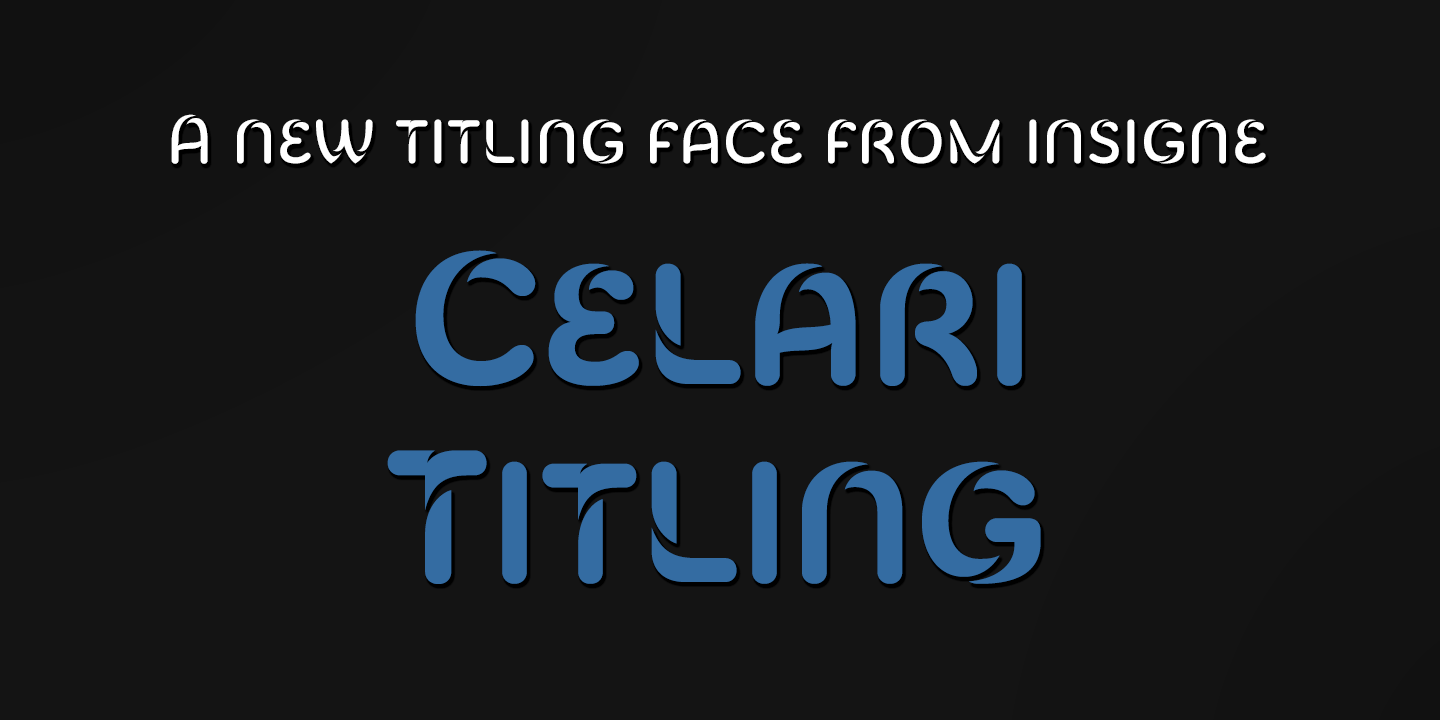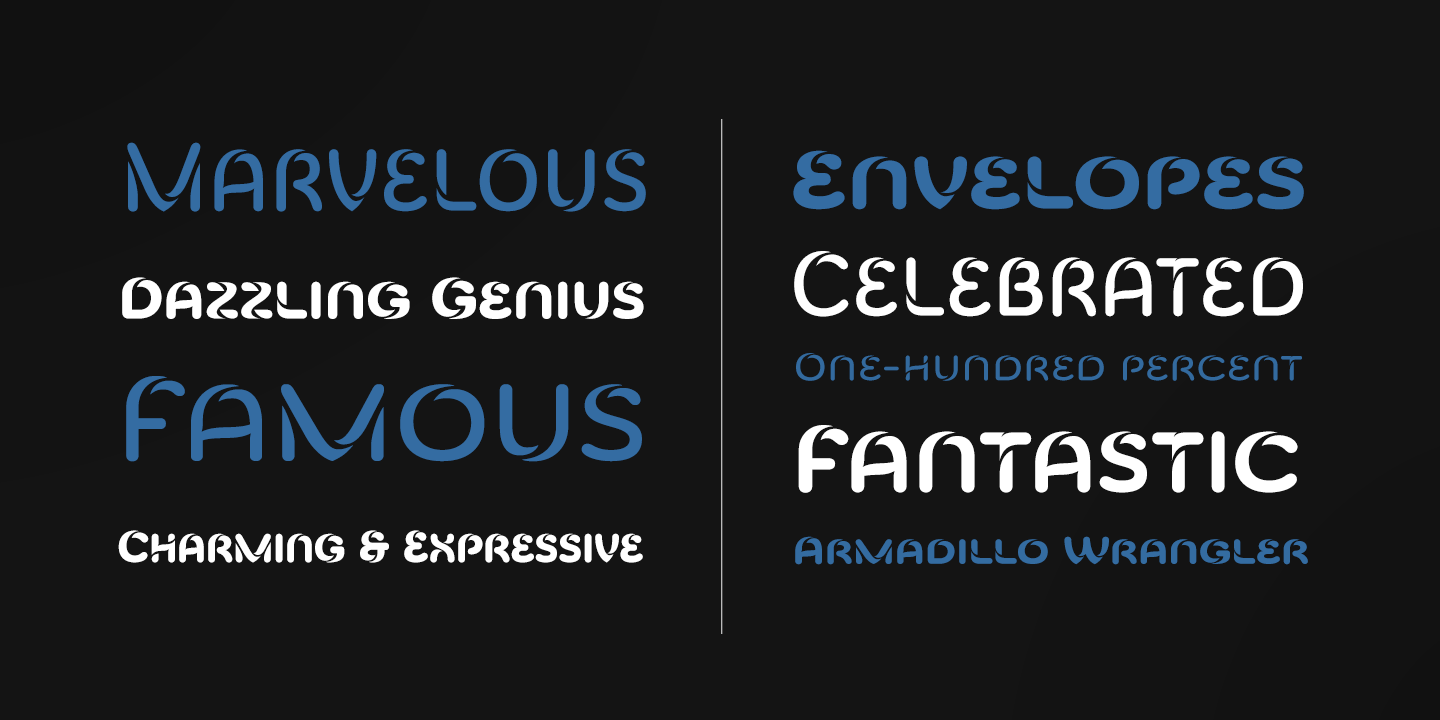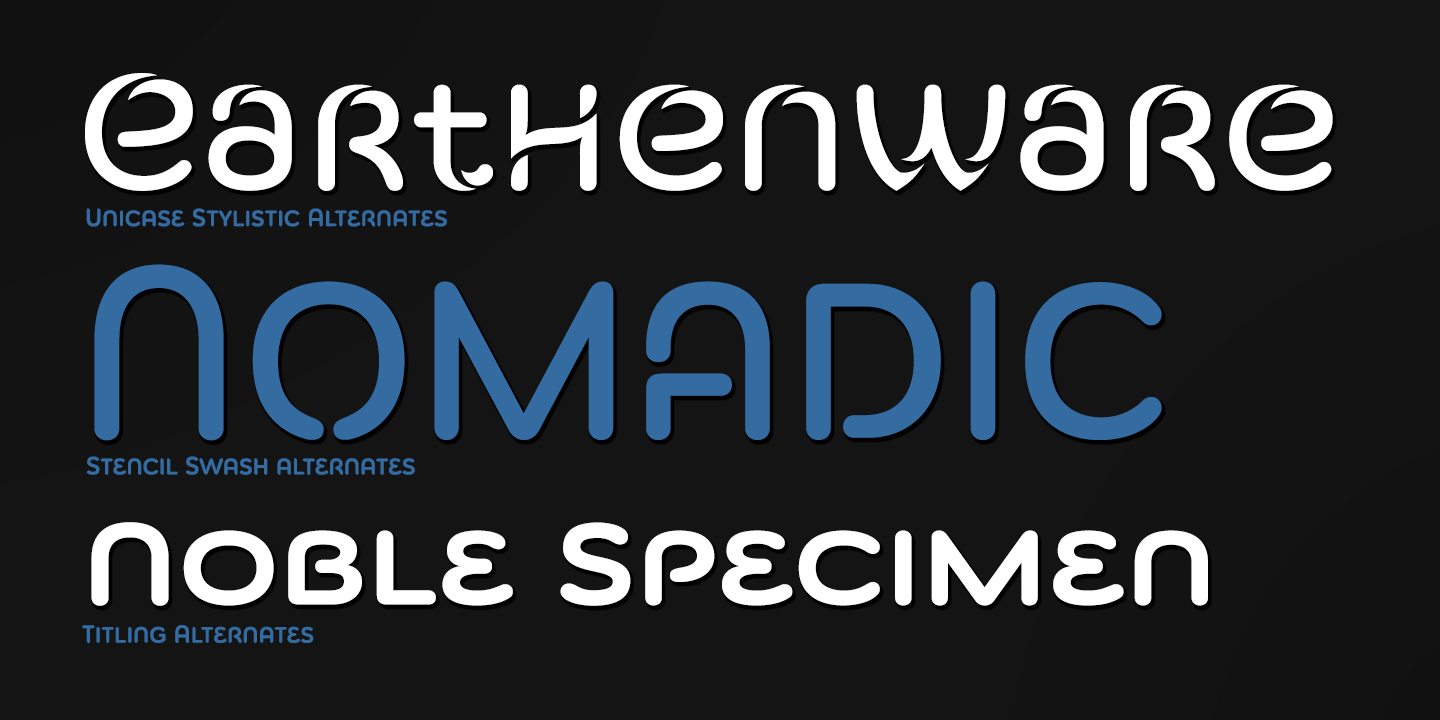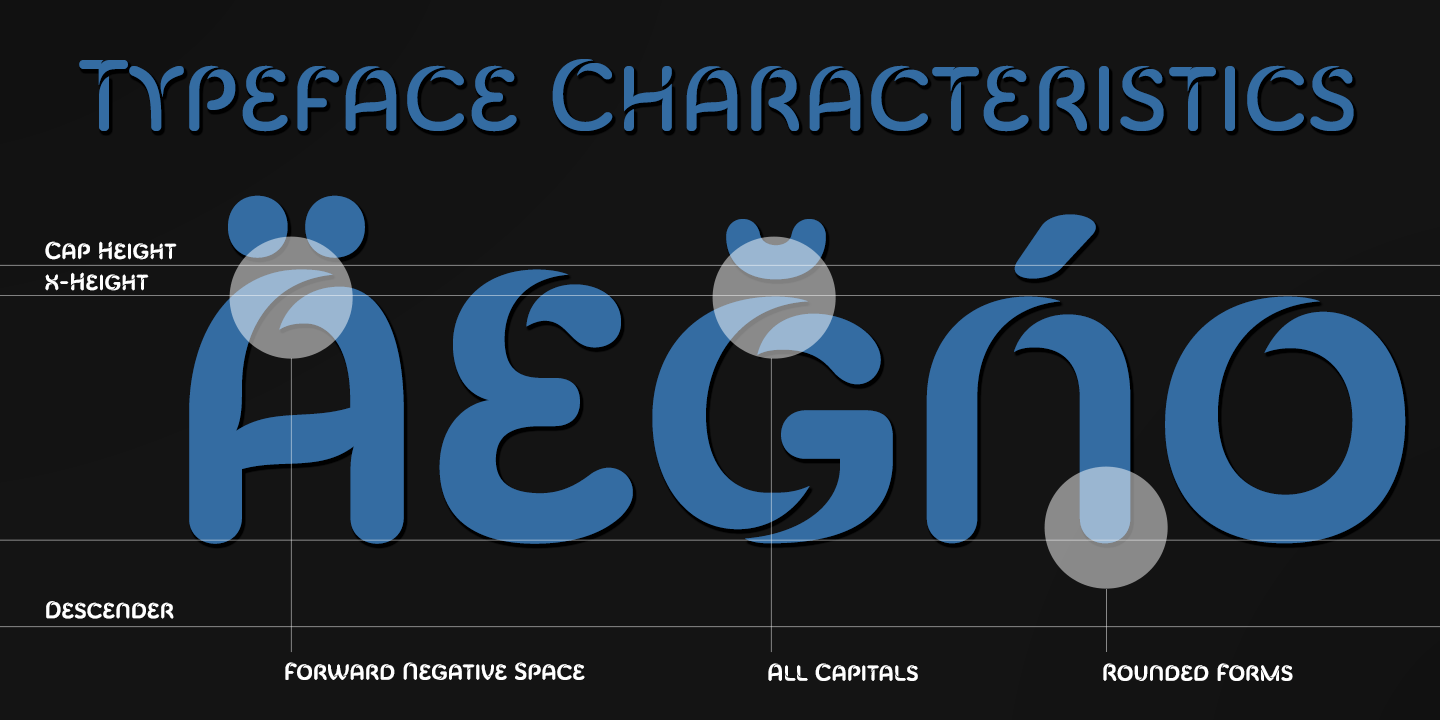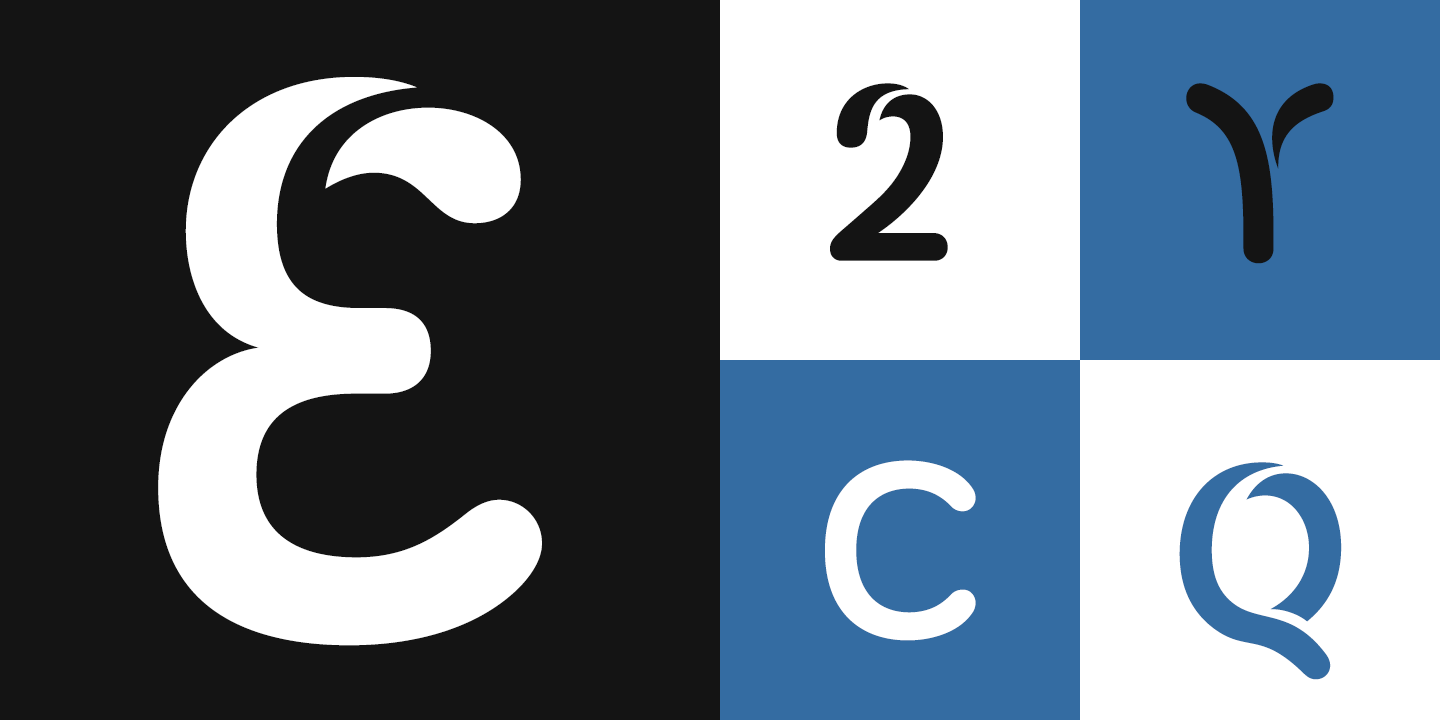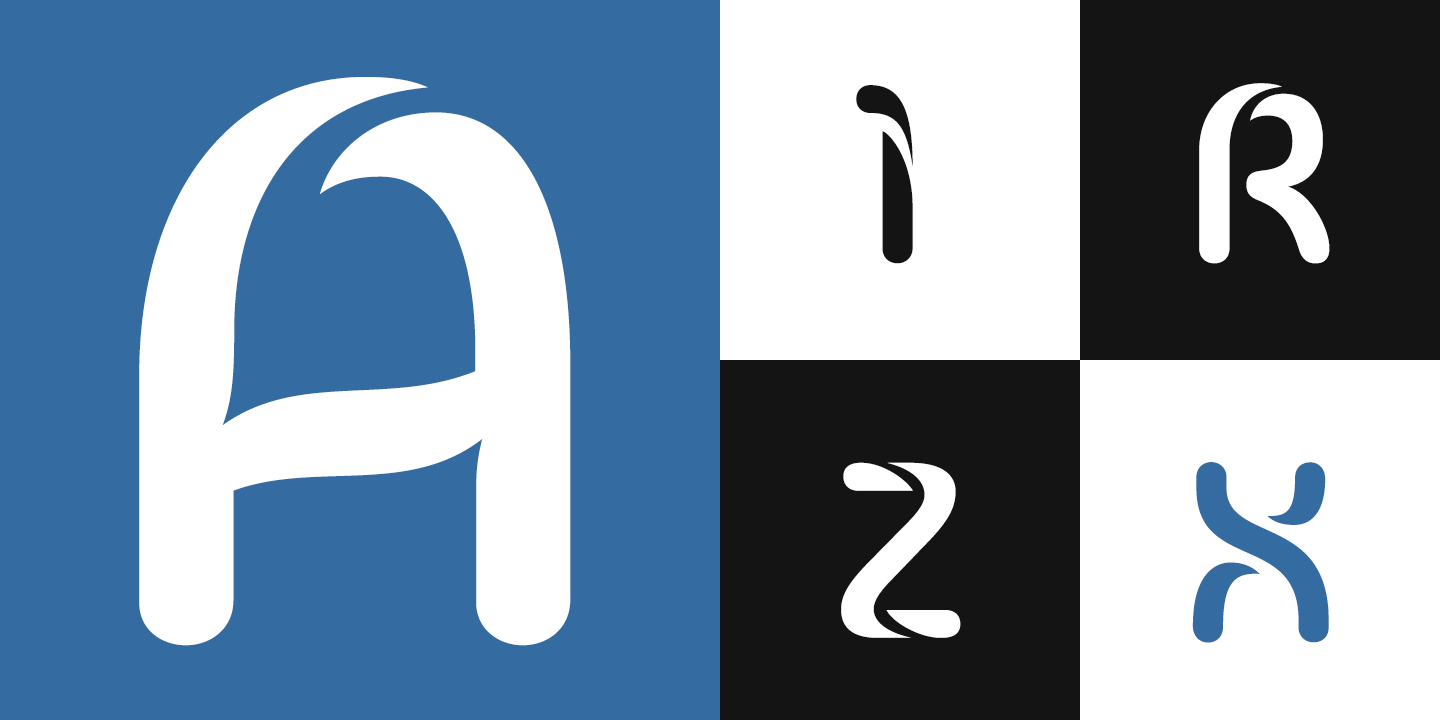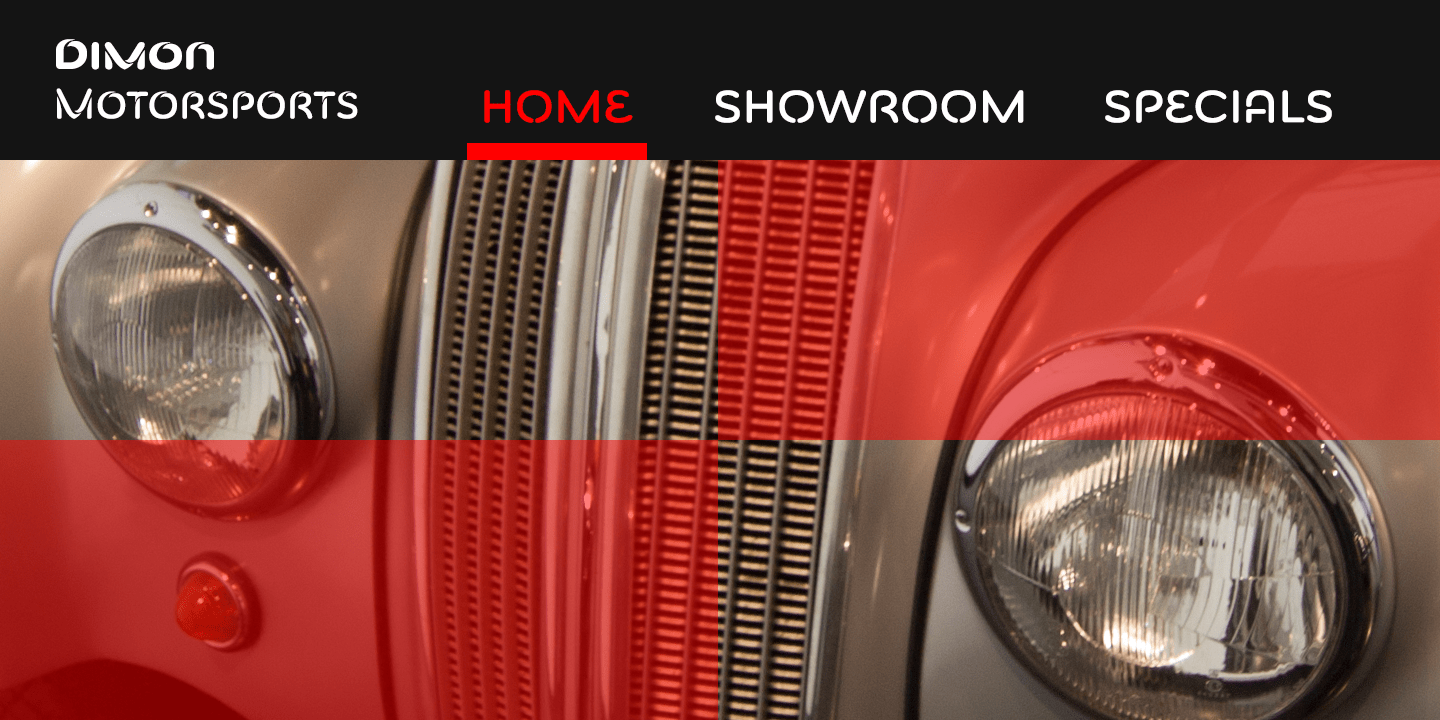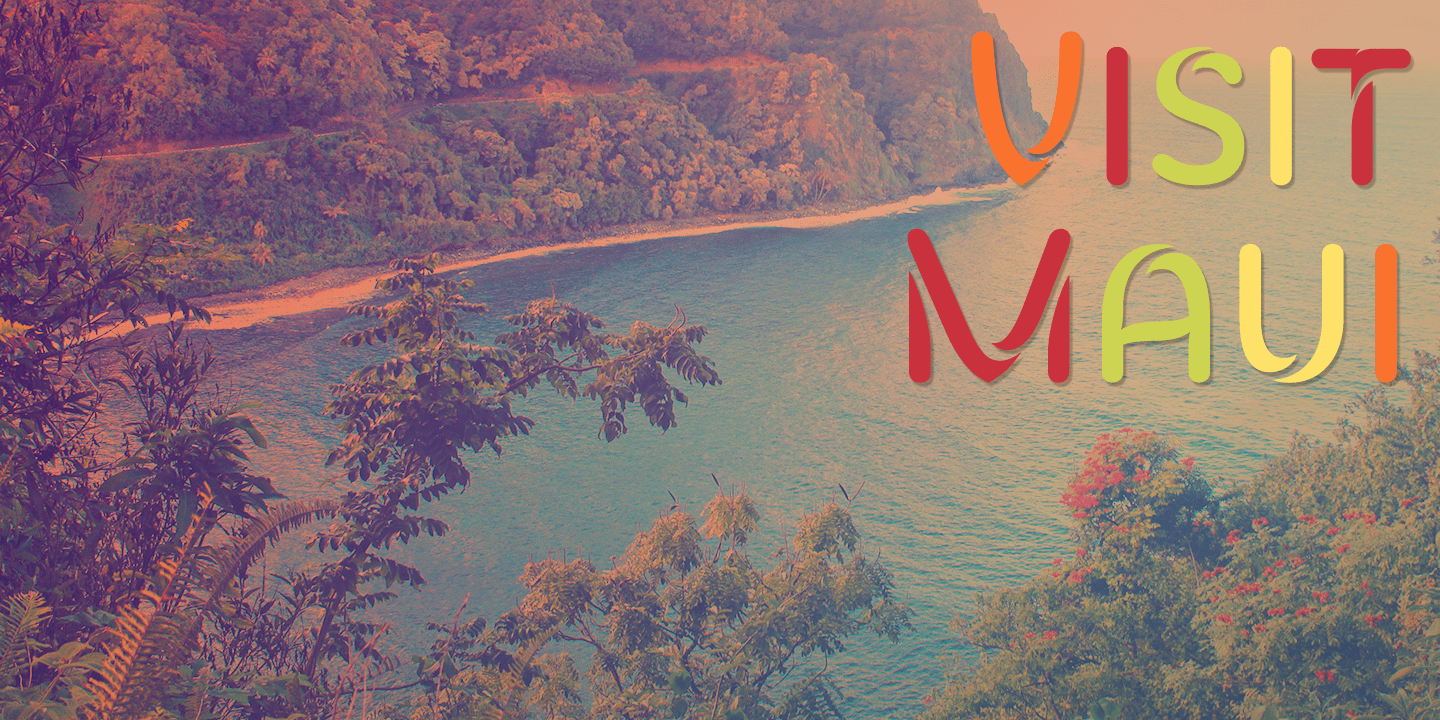
Celari Titling
Need for speed? Satisfy it with insigne's Celari. Take it for a drive and watch how its simple curves, easy lines, and sturdy shapes handle the edges and corners of your projects with smooth and rapid execution. The negative space cuts through the rounded sans serif letterforms of Celari, giving this all-caps typeface a strong impression of dimension and speed. Celari's organic stroke direction allows you to ease through its gentle turns, too, causing the font to hum around the lines of your project like a V8 engine on an open Nevada highway. The speed and agility of Celari is built for nothing less than a headline. Use the larger-than-life power of this face for any number of oversized applications--mastheads, posters, web headlines, flyers. It provides excellent performance for service-oriented ads where efficiency and quick buyer service are priorities.
Customize your ride, too. The OpenType version of Celari includes some serious add-ons to make it your design. The font incorporates discretionary ligatures for some funky combinations and adds in stylistic and contextual alternates for virtually endless possibilities with the characters, ligatures, and composites. Make sure your setup allows for OpenType fonts (Adobe CS suite or Quark) before unleashing the fun of Celari, though.
Be confident with your design. Be quick with your message. Again, take Celari for a drive and unleash the strength and velocity of its character in your design. You've been holding back long enough.